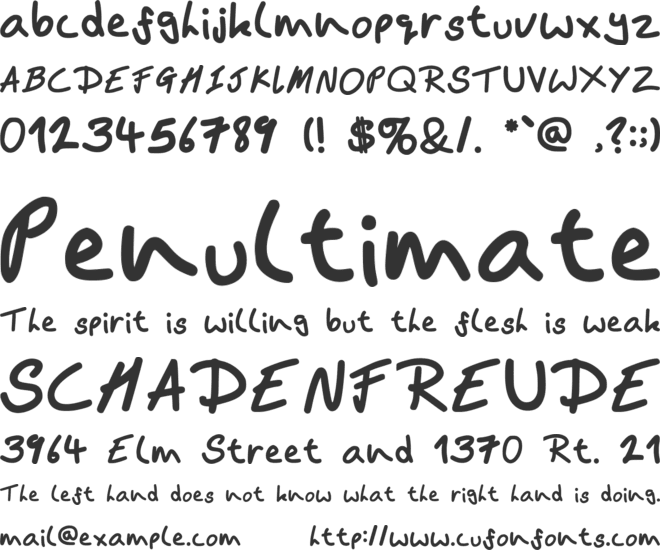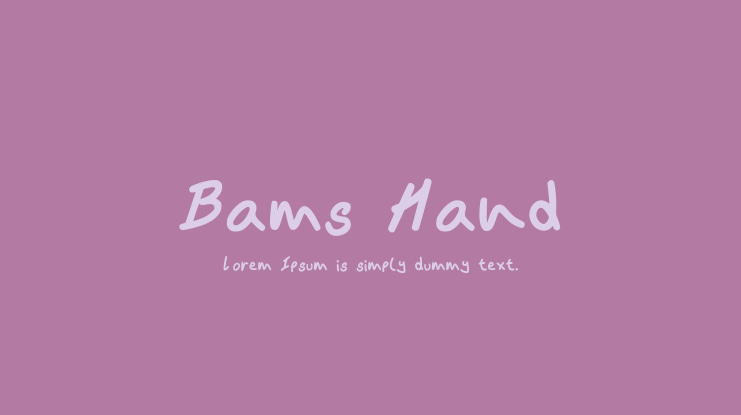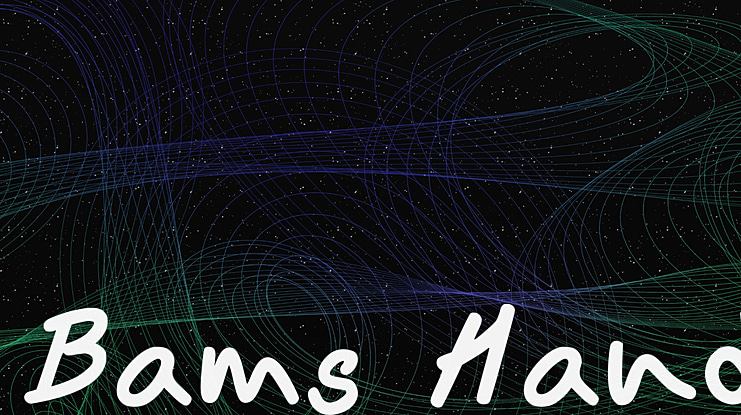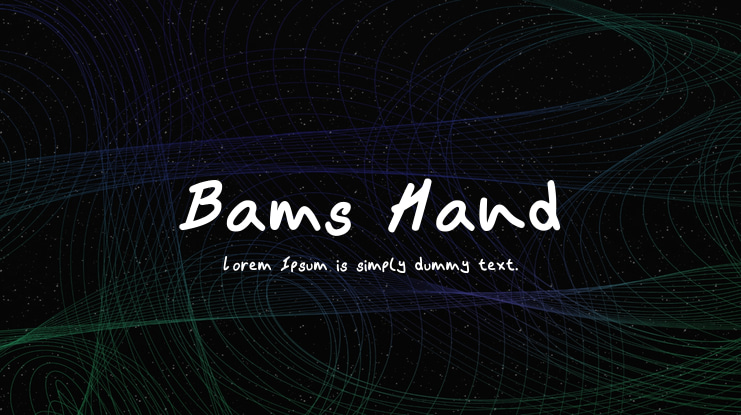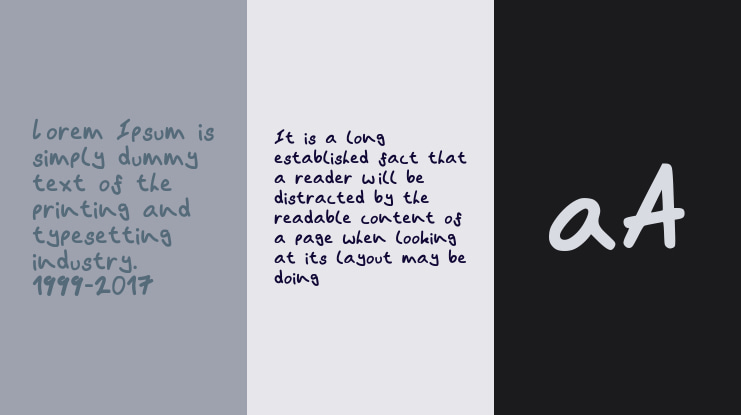
Bams Hand Font
Based on my own handwriting this 'casual' style comes from quick note taking. For when you want a casual, quick doodle looking note/handwritten font.